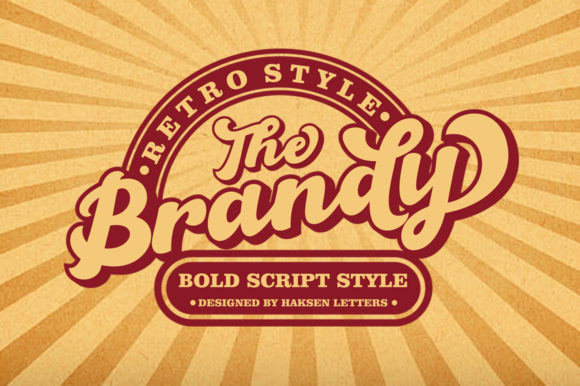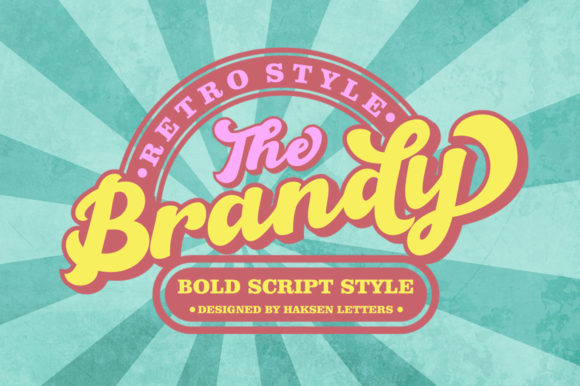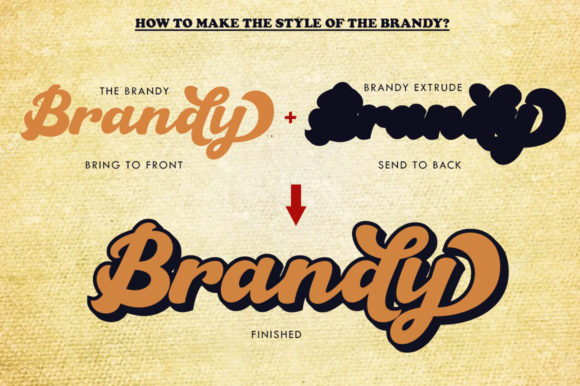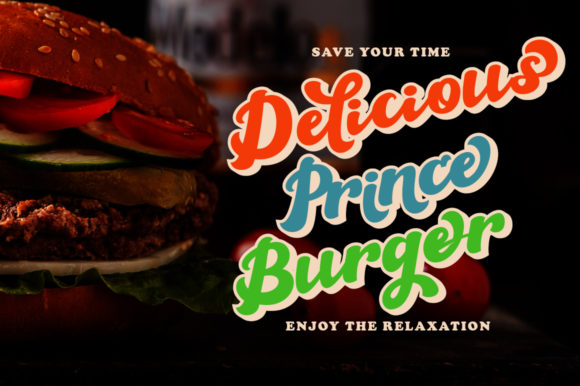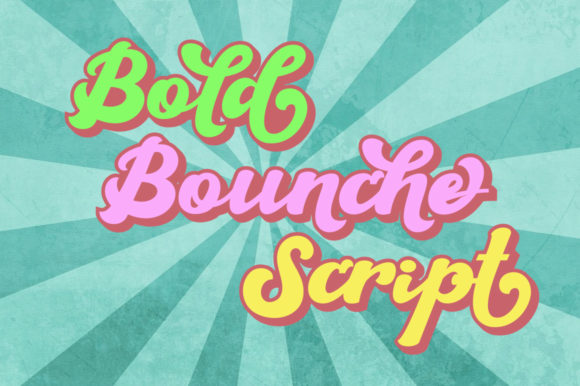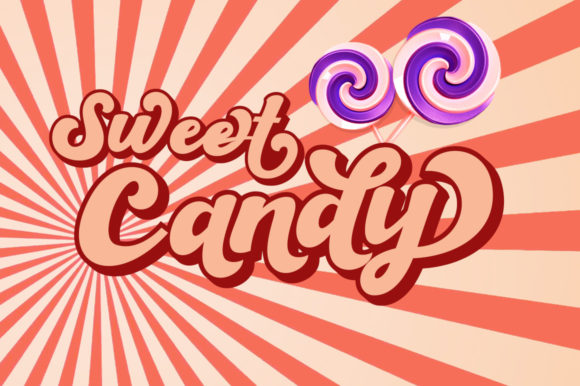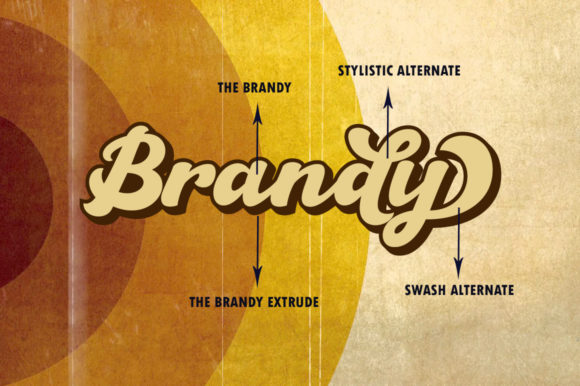
The Brandy Font
About The Brandy Font
The Brandy is a bold script font with a handmade retro style. It’s suitable for advertisement products, branding materials, business designs brands, quotes, posters, t-shirt and more!